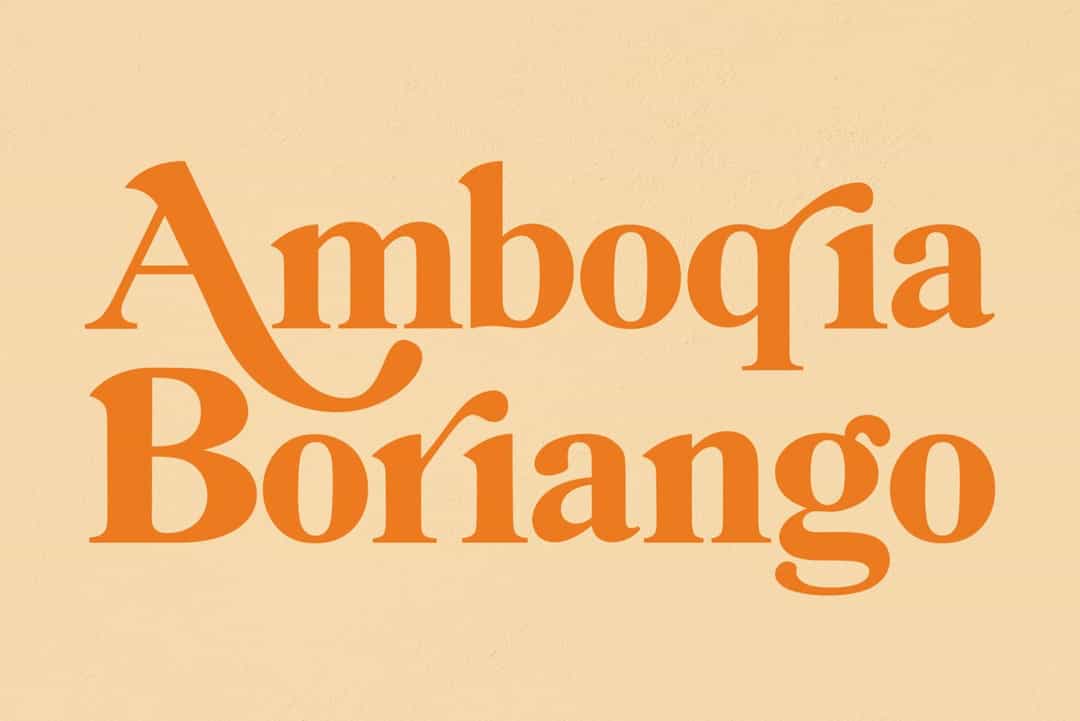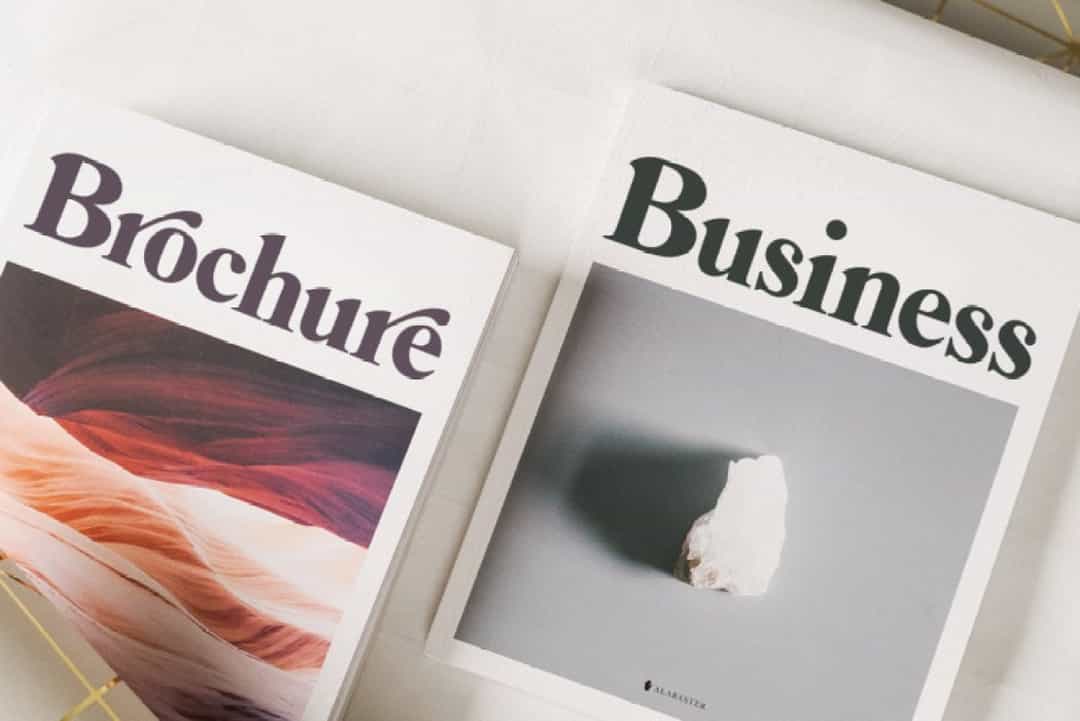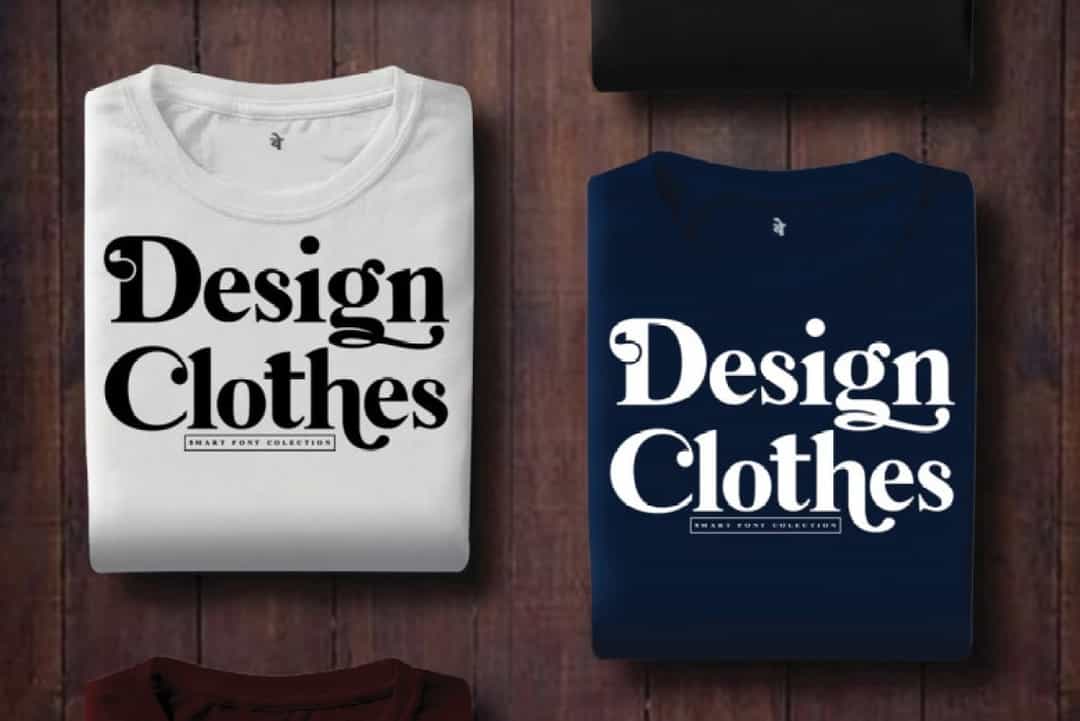
Amboqia Boriango Serif Display Font
Amboqia Boriango can be said to be an beautifully designed serif display font. This font is best suited for display fonts and typeface for display uses, and this font is highly suggested for magazine title and layout use, logos/branding, invitations, quotes, blog headers and footers for blog posts, posters, advertisements, etc.